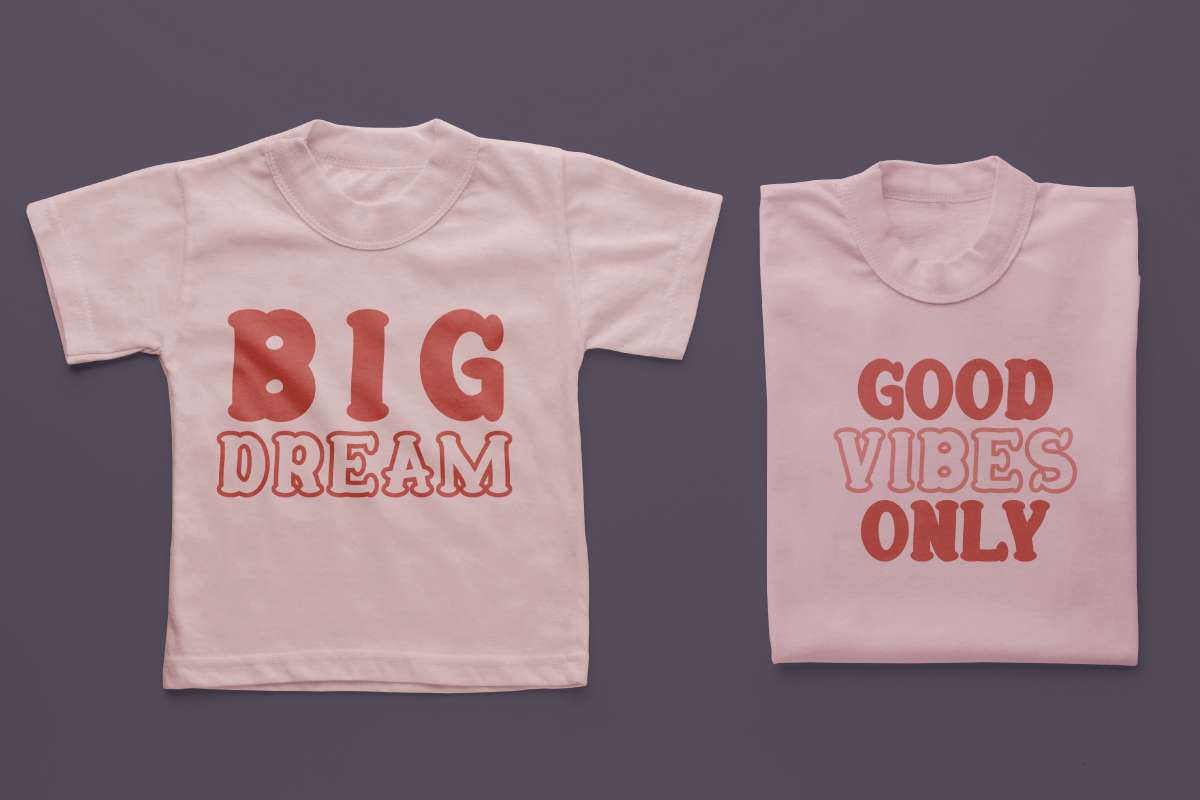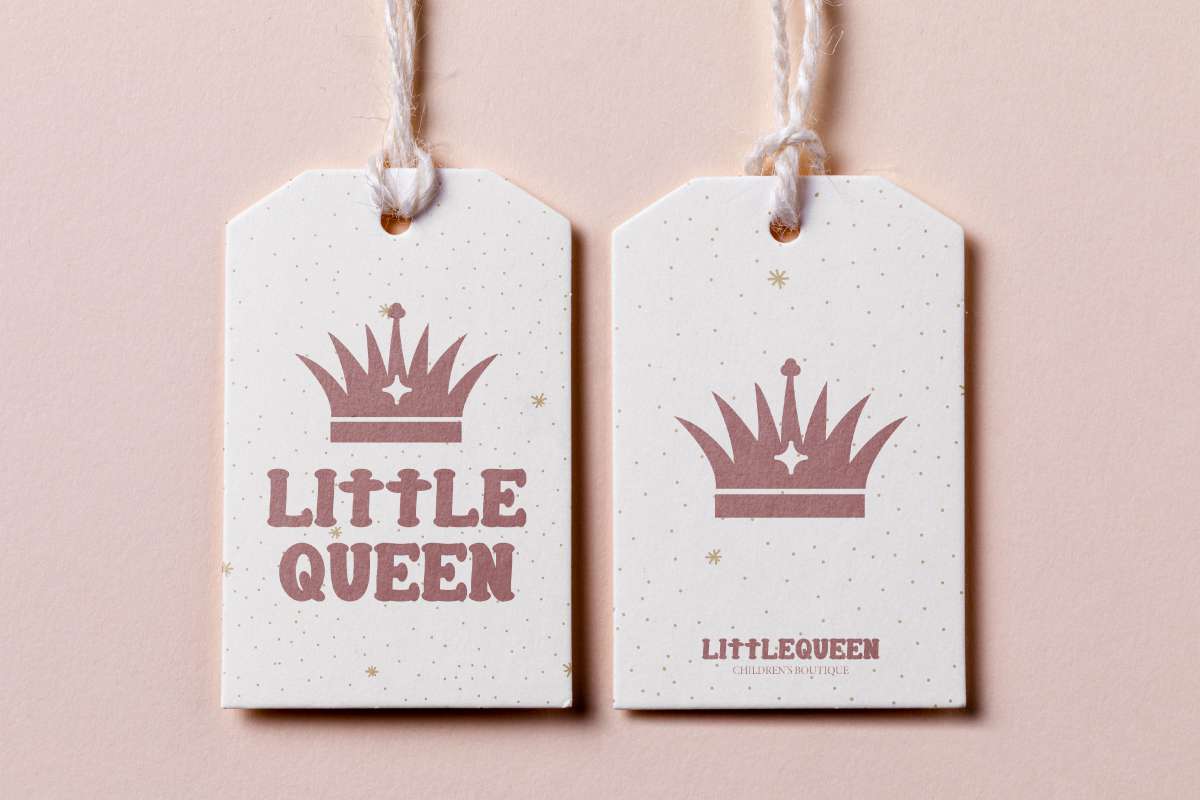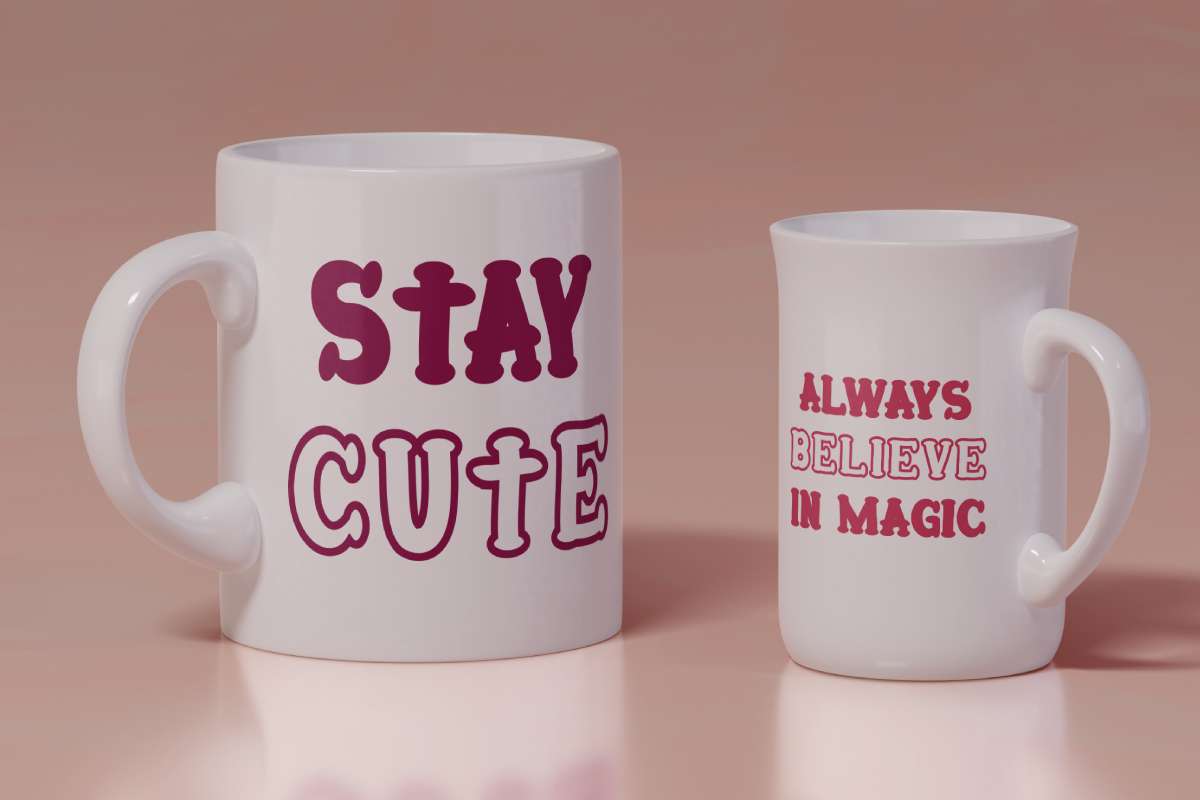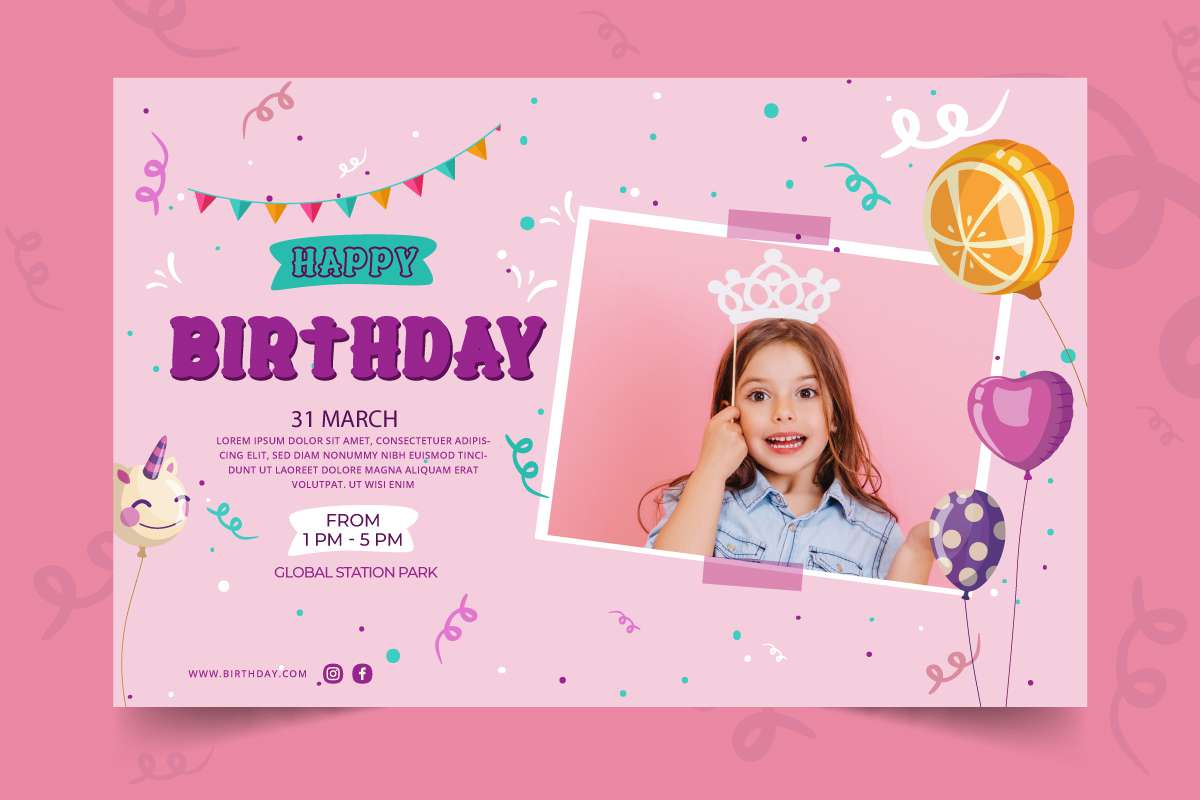
Popovers Font
Popovers Display Font
This is a fancy font with pop culture comic style. This font is inspired by a cute and stylish children’s comic book cartoon. When we created this font, we really wanted to make a touch of it modern and playful. This awesome font is for anyone who needs a fun and creative design with a cartoon comic theme.
Popovers Font includes a full set of ALL CAPS with different sizes between uppercase and lowercase letters, Numbers and Punctuation to create beautiful font look and perfect your extraordinary projects. This font has two different styles: Regular and Outline.